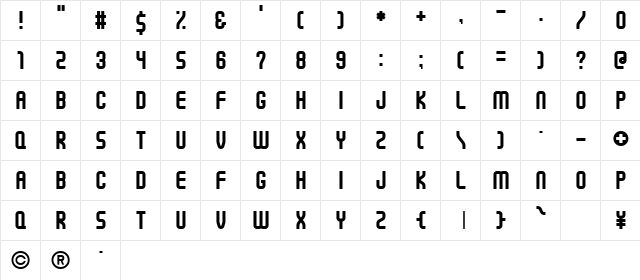
TekutekuAL Regular
Design Context for TekutekuAL Typeface
TekutekuAL is a composed and adaptable typeface that performs quietly and consistently across a wide range of design contexts.